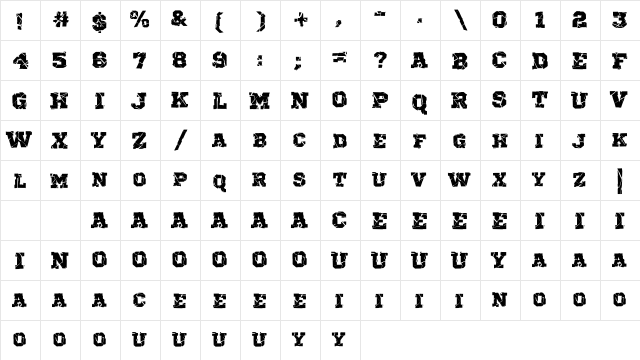
Broken Regular
| Foundry | Picatype Design Studio |
| Designer | Nirmal Biswas |
Design Context for Broken Typeface
Broken is a composed and adaptable typeface that performs quietly and consistently across a wide range of design contexts.
Pro Tip: Pair Broken with a font of contrasting weight or personality to build a more expressive typographic hierarchy.